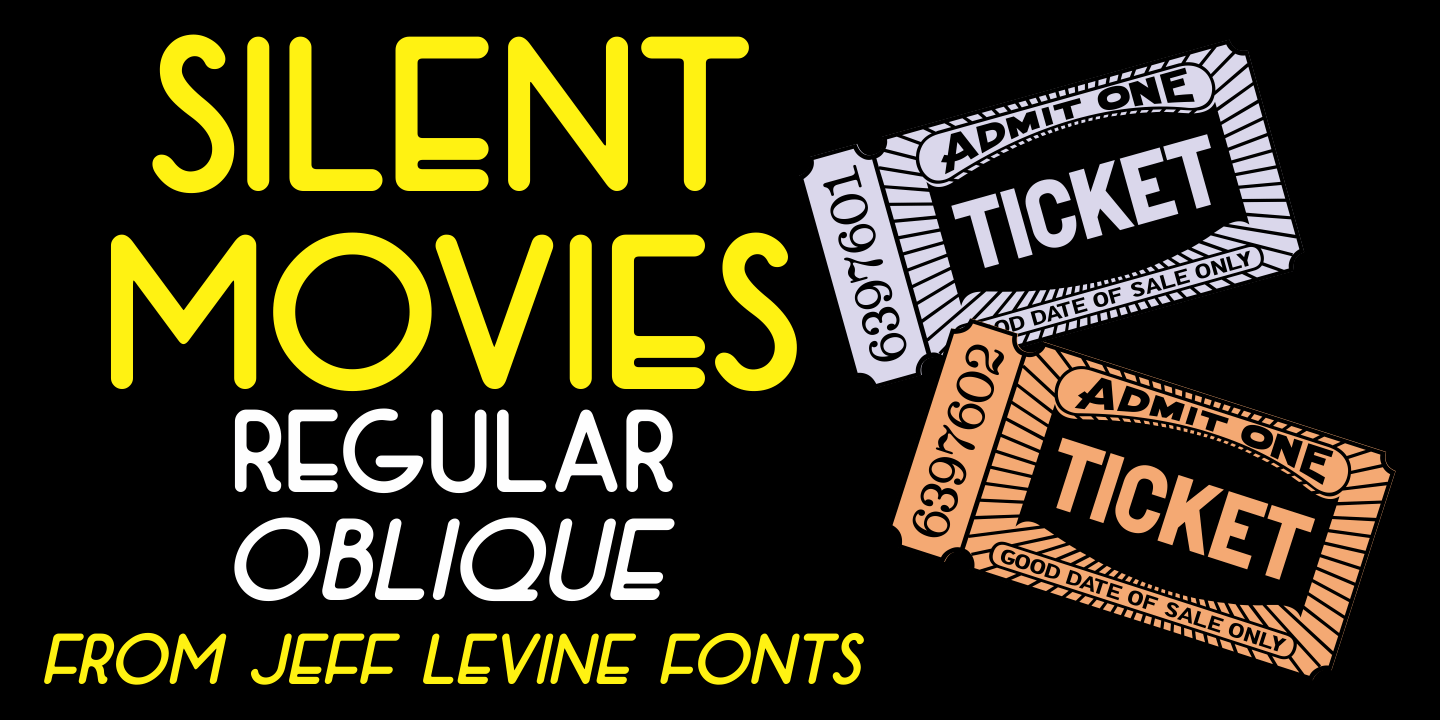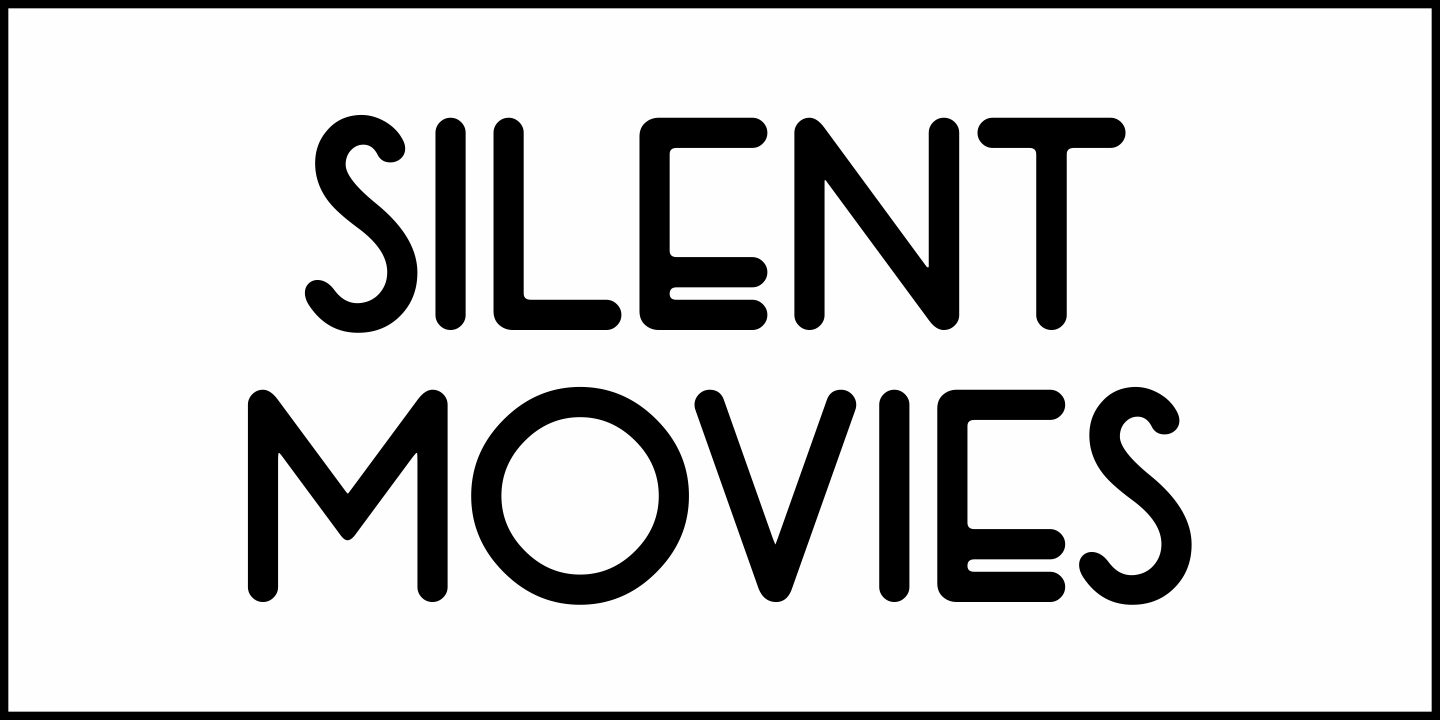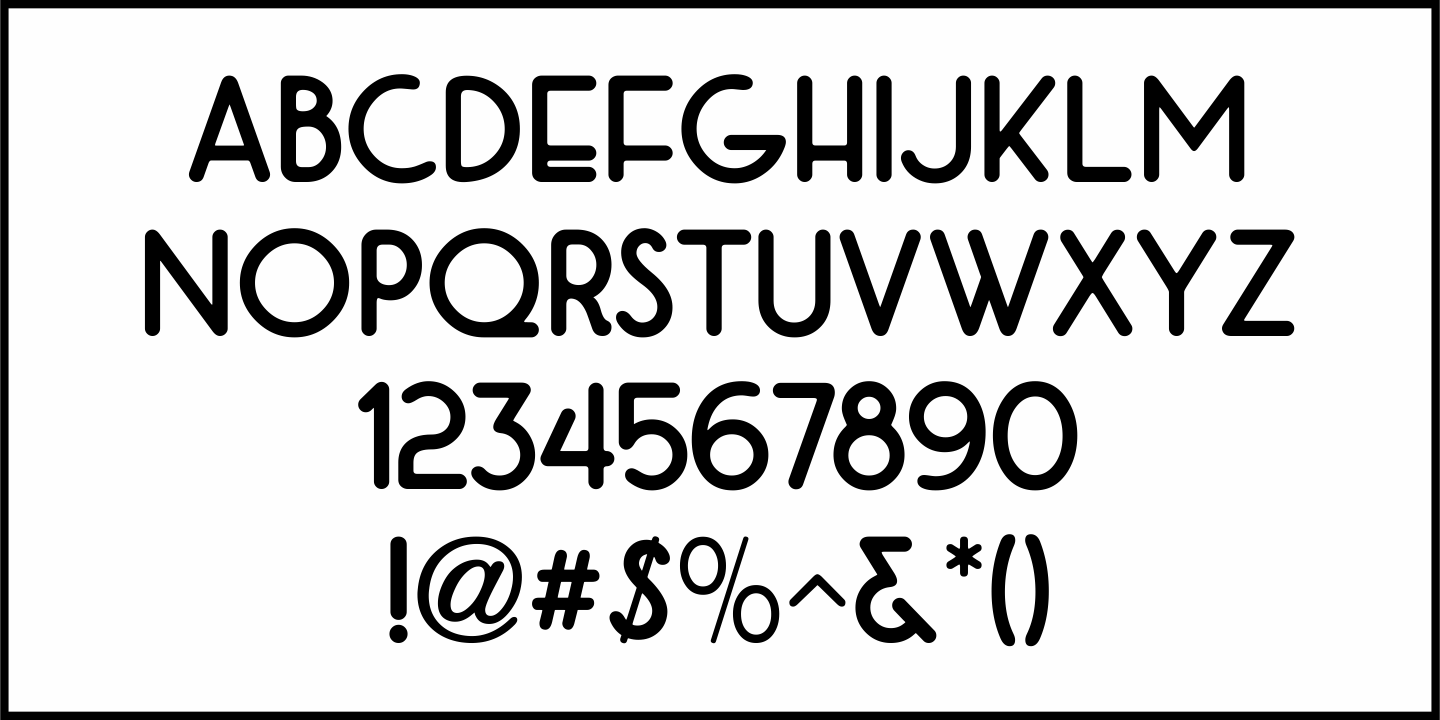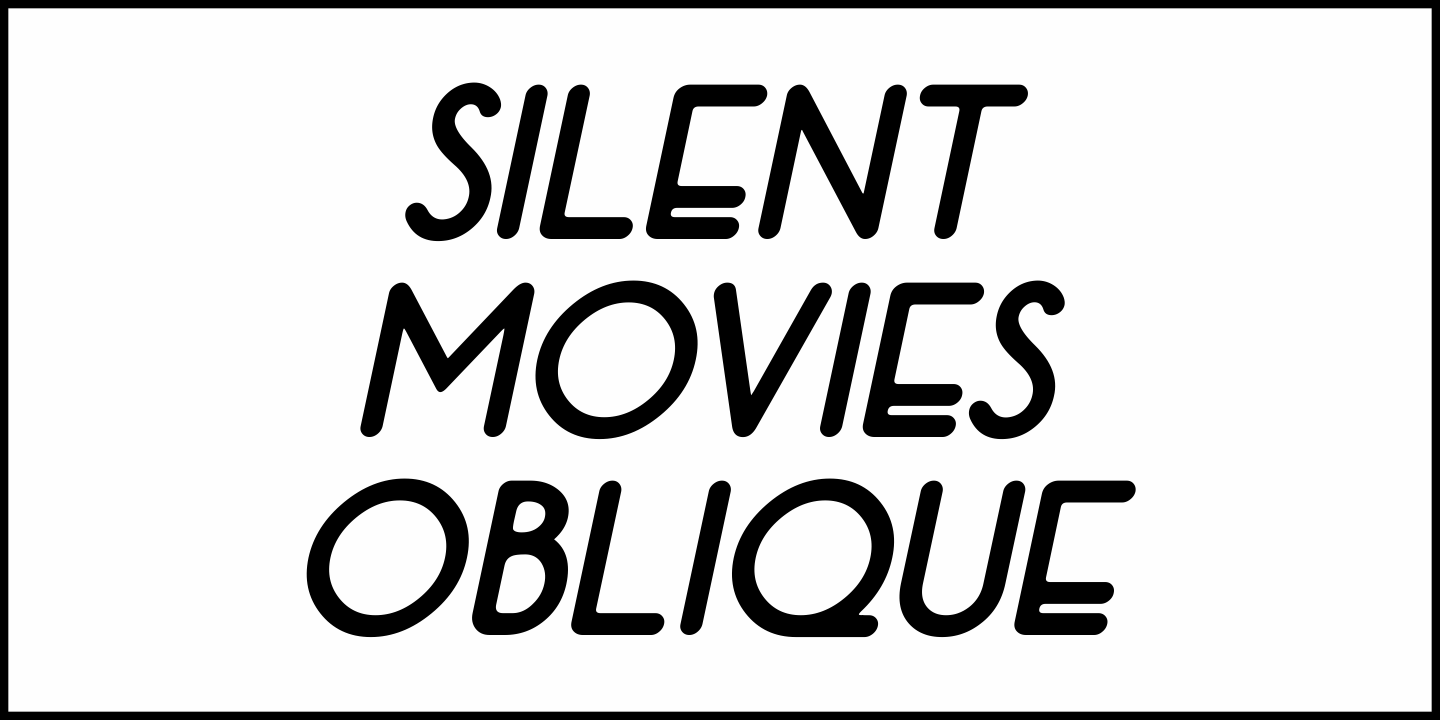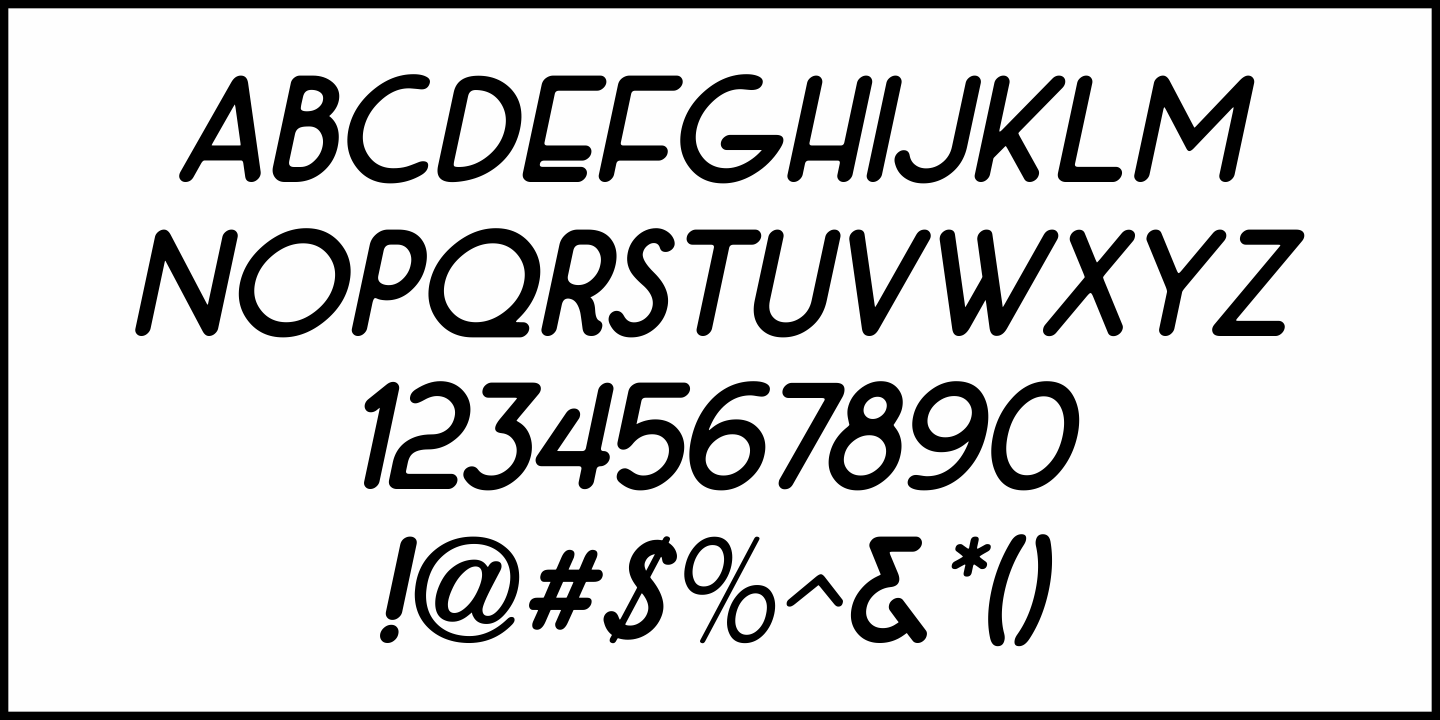
Silent Movies
An ad in the Oct. 27, 1919 issue of the trade magazine 'The Moving Picture World' promoted 'Princess Virtue' from Bluebird Pictures starring Mae Murray – The Adorable [as noted by the movie studio in the ad].
The Art Nouveau hand lettering emulated the style usually drawn with a round nib pen, but was given a specialized treatment for the ad. It was re-drawn in a more traditional 'pen nib' look for digital revival.
The end result is Silent Movies JNL, which is available in both regular and oblique versions.